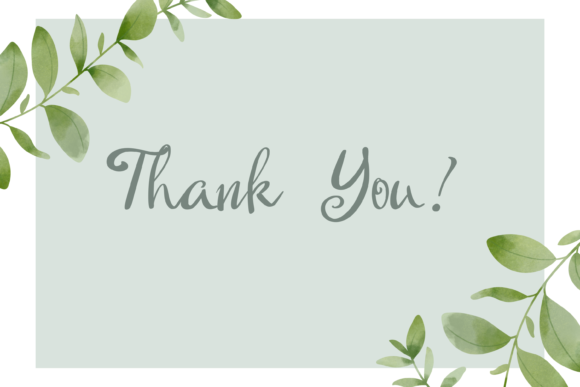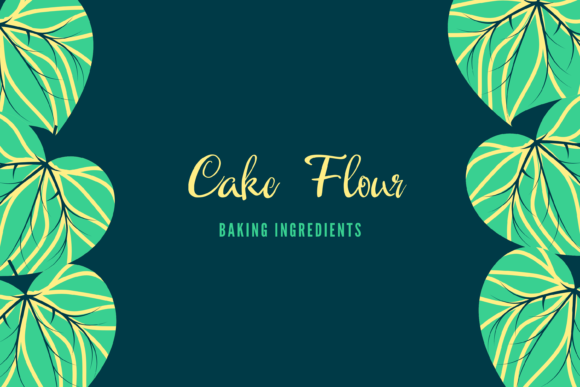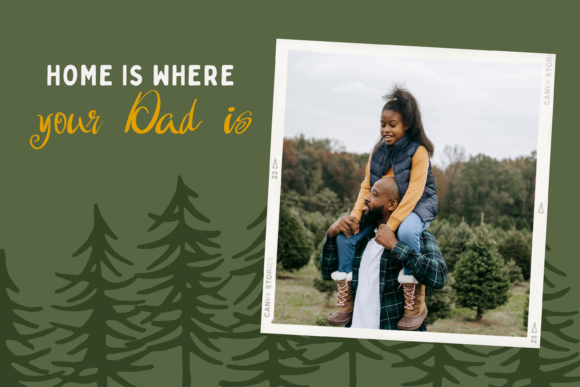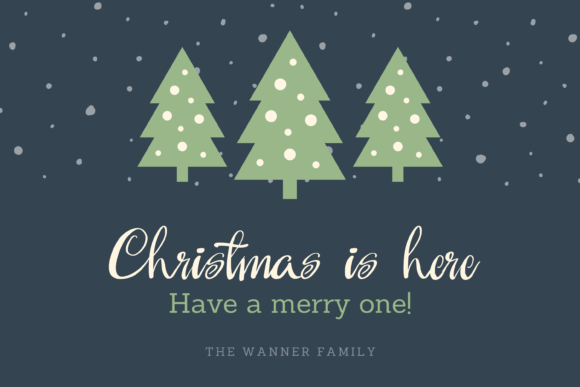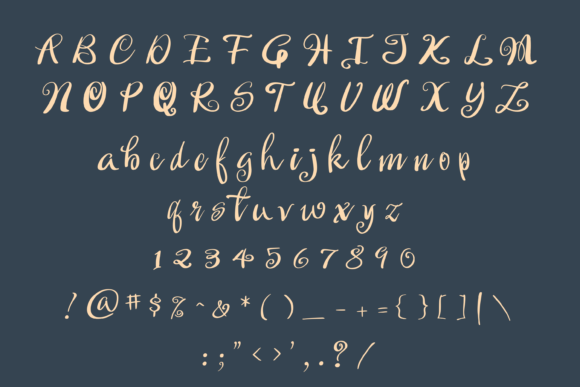
Ginger Ale Font: Elevate Your Designs with a Unique and Elegant Handwritten Style
Are you a designer or crafter looking for a font that can add a touch of elegance and personality to your designs? Look no further than the Ginger Ale Font. This beautiful handwritten font is perfect for a variety of design projects, including wedding invitations, thank you cards, weddings, greeting cards, logos, and more.
What Makes Ginger Ale Font So Special?
Ginger Ale Font is a unique and elegant handwritten font that stands out from the crowd. Its flowing lines and delicate curves give it a sophisticated and refined look that’s perfect for designs that require a personal touch. Whether you’re creating wedding stationery, branding materials, or social media graphics, this font is sure to impress.
Key Features of Ginger Ale Font
- Handwritten style: Ginger Ale Font has a beautiful, handwritten style that’s perfect for designs that require a personal touch.
- Elegant and refined: The font’s flowing lines and delicate curves give it a sophisticated and refined look.
- Versatile: Ginger Ale Font can be used for a variety of design projects, including wedding invitations, thank you cards, weddings, greeting cards, logos, and more.
- Easy to read: Despite its elegant style, Ginger Ale Font is easy to read, making it perfect for designs that require a clear and concise message.
Design Ideas Using Ginger Ale Font
Ginger Ale Font is a versatile font that can be used for a wide range of design projects. Here are some ideas to get you started:
- Wedding invitations: Use Ginger Ale Font to create beautiful and elegant wedding invitations that set the tone for the big day.
- Thank you cards: Add a personal touch to your thank you cards with Ginger Ale Font, perfect for expressing gratitude to loved ones.
- Wedding stationery: Use Ginger Ale Font to create a cohesive look for your wedding stationery, including programs, menus, and place cards.
- Greeting cards: Create beautiful and heartfelt greeting cards for special occasions, such as birthdays, anniversaries, and holidays.
- Logos and branding: Use Ginger Ale Font to create a unique and memorable logo for your business or brand.
Tips for Using Ginger Ale Font
Here are some tips for getting the most out of Ginger Ale Font:
- Use it sparingly: While Ginger Ale Font is beautiful, it can be overwhelming if used too much. Use it sparingly to add a touch of elegance to your designs.
- Pair it with other fonts: Experiment with pairing Ginger Ale Font with other fonts to create a unique and interesting look.
- Adjust the size and color: Play around with different sizes and colors to find the perfect combination for your design.
| Font Name | Ginger Ale Font |
| Author | Rasa |
Ginger Ale Font is a unique and elegant handwritten font that’s perfect for designers and crafters looking to add a personal touch to their designs. With its flowing lines and delicate curves, it’s sure to impress. Whether you’re creating wedding invitations, thank you cards, logos, or greeting cards, Ginger Ale Font is a versatile font that can help you achieve your design goals.